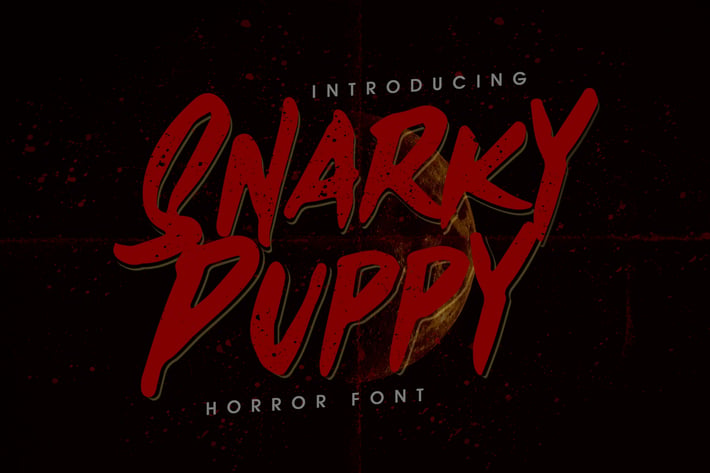
Snarky Puppy - Horror Font
Snarky Puppy is perfect to use for Logotype, Letterhead, Poster, Apparel Design, Label and etc.
The alternative characters were divided into several features such as Stylistic Alternates and Ligature.
- All Alternates
- Standard Ligatures